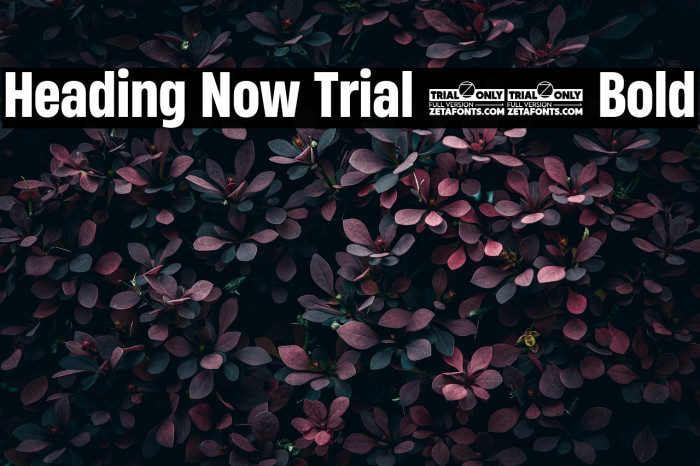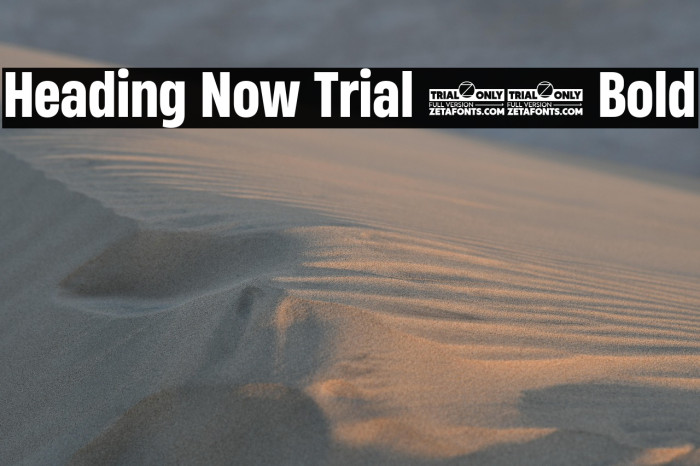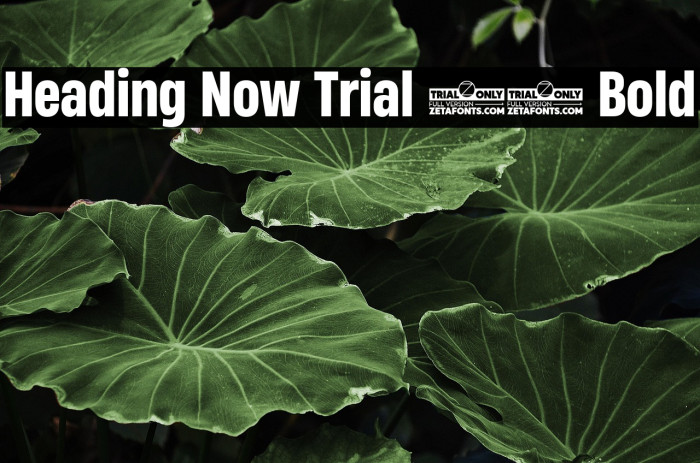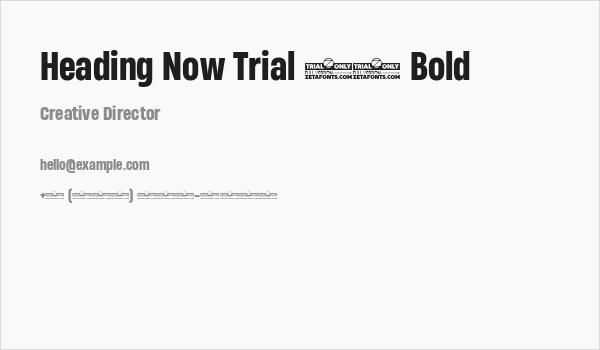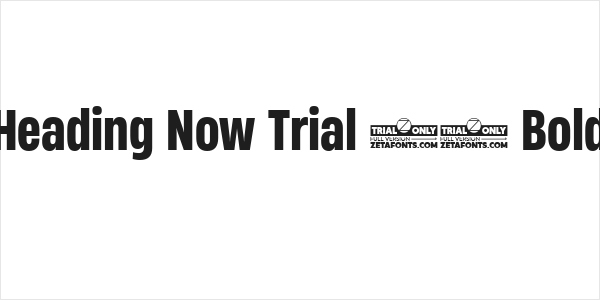
Heading Now Trial 56 Bold Font
Heading Now Trial 56 Bold Description
This font is a bold, sans-serif typeface characterized by its strong, impactful presence. The letters are uniformly thick, providing a consistent and powerful visual weight across all characters. The uppercase and lowercase letters maintain a balanced proportion, ensuring readability while conveying a sense of authority and modernity. The numerals and special characters are designed with the same boldness, making them stand out effectively. This font is ideal for creating attention-grabbing headlines and titles, where clarity and emphasis are paramount.
| Proposed Projects | Ideal for headlines, posters, advertising, and branding projects that require a bold statement. |